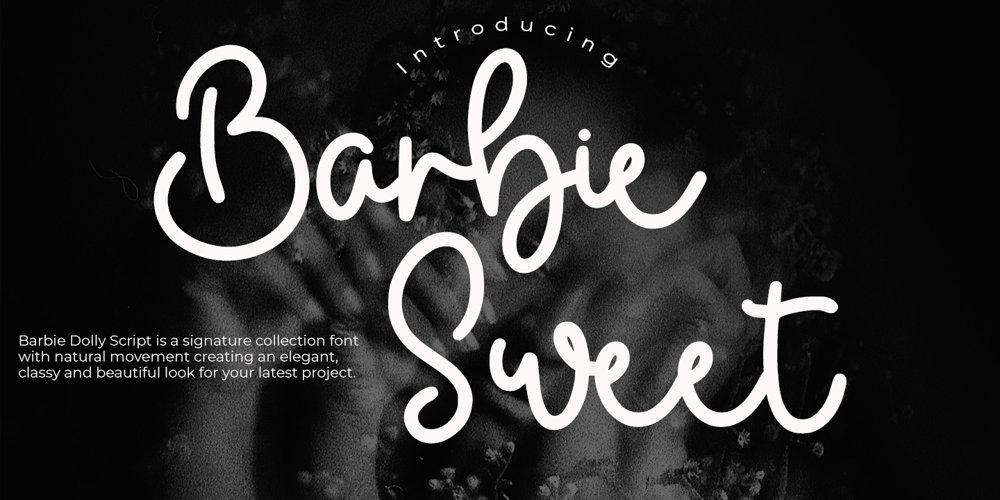
Barbie Sweet Font Family was designed by Muhammad Zaini and published by Cocodesign. Barbie Sweet contains 1 styles and family package options. Barbie Dolly Script is a signature collection font with natural movement creating an elegant, classy and beautiful look for your latest project.Barbie Dolly Script is perfect for branding projects, logos, wedding designs, social media posts, advertising, product packaging, product design, labels, photography, watermarks, invitations, stationery and any project that requires a handwritten feel.If you need help or have questions, please let me know. I am happy to help 🙂 Thank you & Congratulations on Designing!